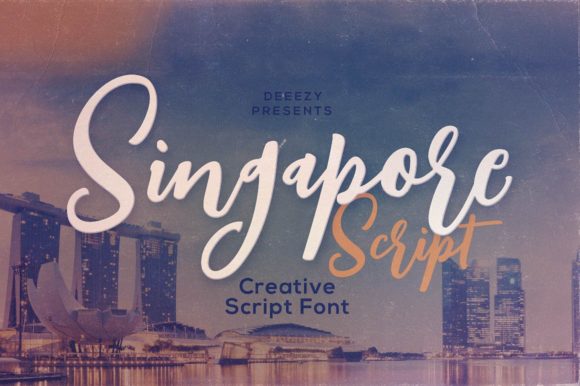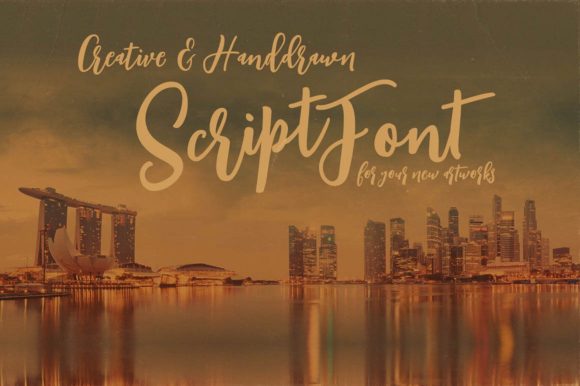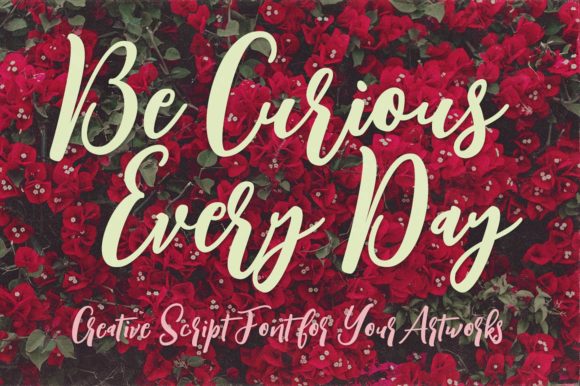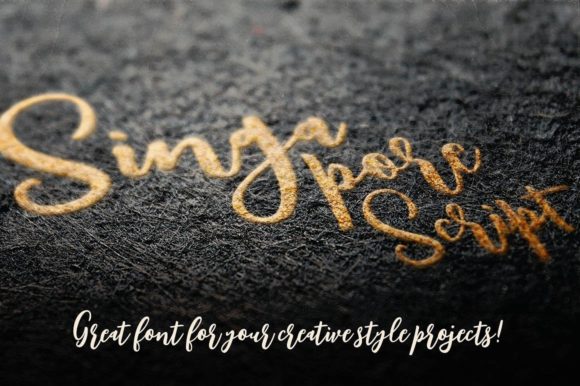
About Singapore Script Font
Introducing The Singapore, a contemporary handwritten script font that seamlessly blends modernity with the expressive strokes of a brush. Its dynamic brush style injects a playful and lively feel into your designs, making it a versatile and engaging choice for a variety of creative projects.
Designed with a keen eye for modern aesthetics, The Singapore brings a fresh and vibrant energy to your typography. The brush-style elements not only add a touch of spontaneity but also contribute to the overall playfulness of the font, making it well-suited for projects that seek to convey a sense of creativity and dynamism.
The Singapore is more than just a font; it’s a design asset that adapts effortlessly to a range of applications. Whether you’re working on branding materials, promotional content, social media graphics, or any project that demands a contemporary and energetic touch, The Singapore rises to the occasion.
Its handwritten script imparts a sense of authenticity to your designs, making them feel more personal and relatable. This makes The Singapore particularly effective for projects that aim to establish a connection with a target audience, adding a human touch to the visual communication.
In summary, The Singapore is a modern and playful handwritten script font that brings a sense of dynamism to your designs. With its brush style, it stands as a versatile choice for a wide array of applications, adding a touch of creativity and authenticity to your branding, marketing, and design projects. Embrace the contemporary charm of The Singapore and let it infuse your work with a delightful and spirited vibe.